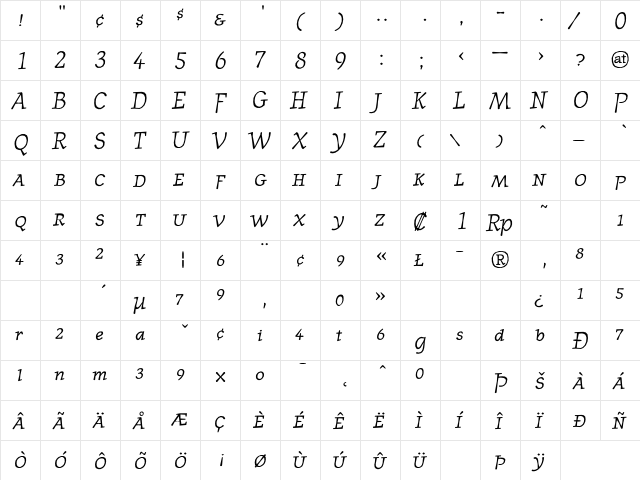
JournalSmallcaps RomanItalic Font Preview
JournalSmallcaps RomanItalic
Design Context for JournalSmallcaps Typeface
JournalSmallcaps offers clean, dependable letterforms without strong stylistic allegiance, making it a practical choice for designers who need flexibility. The dynamic lean of this cut emphasises speed and emphasis in any layout.
Pro Tip: Try JournalSmallcaps for annotation and caption copy alongside an upright companion — the contrast in angle creates a dynamic but ordered typographic system.